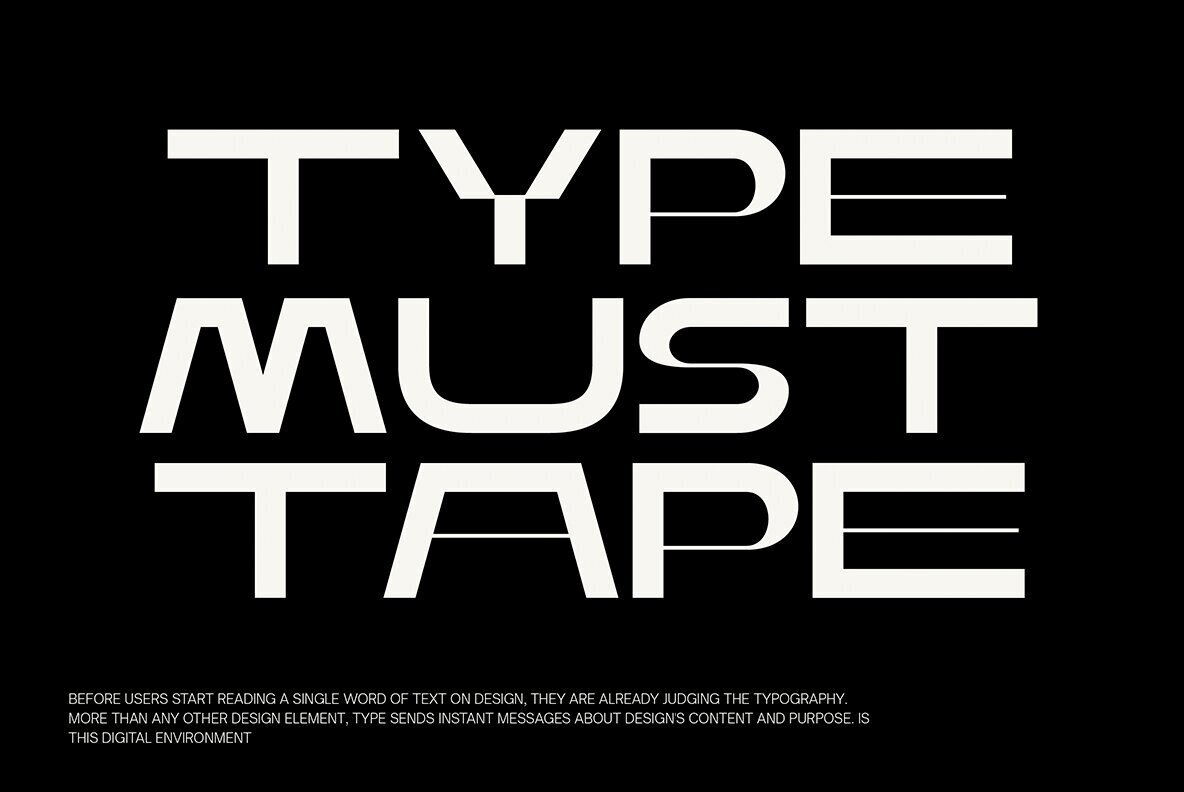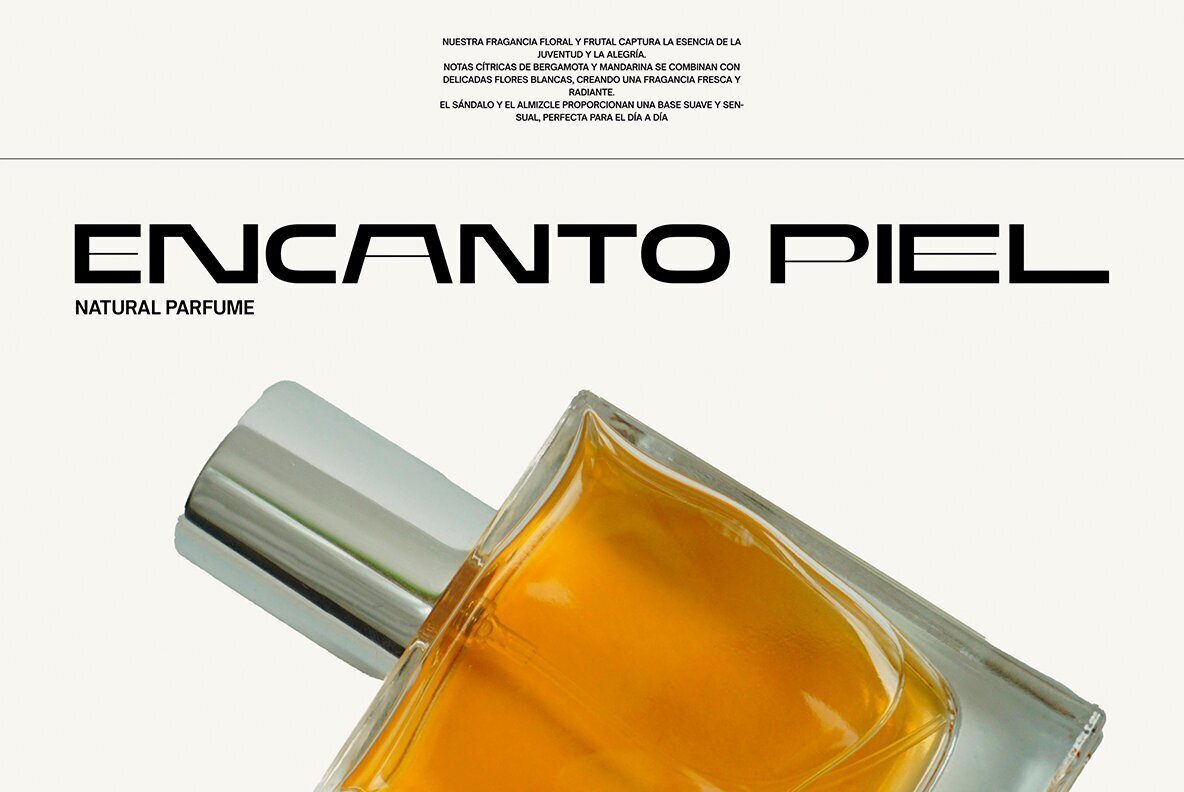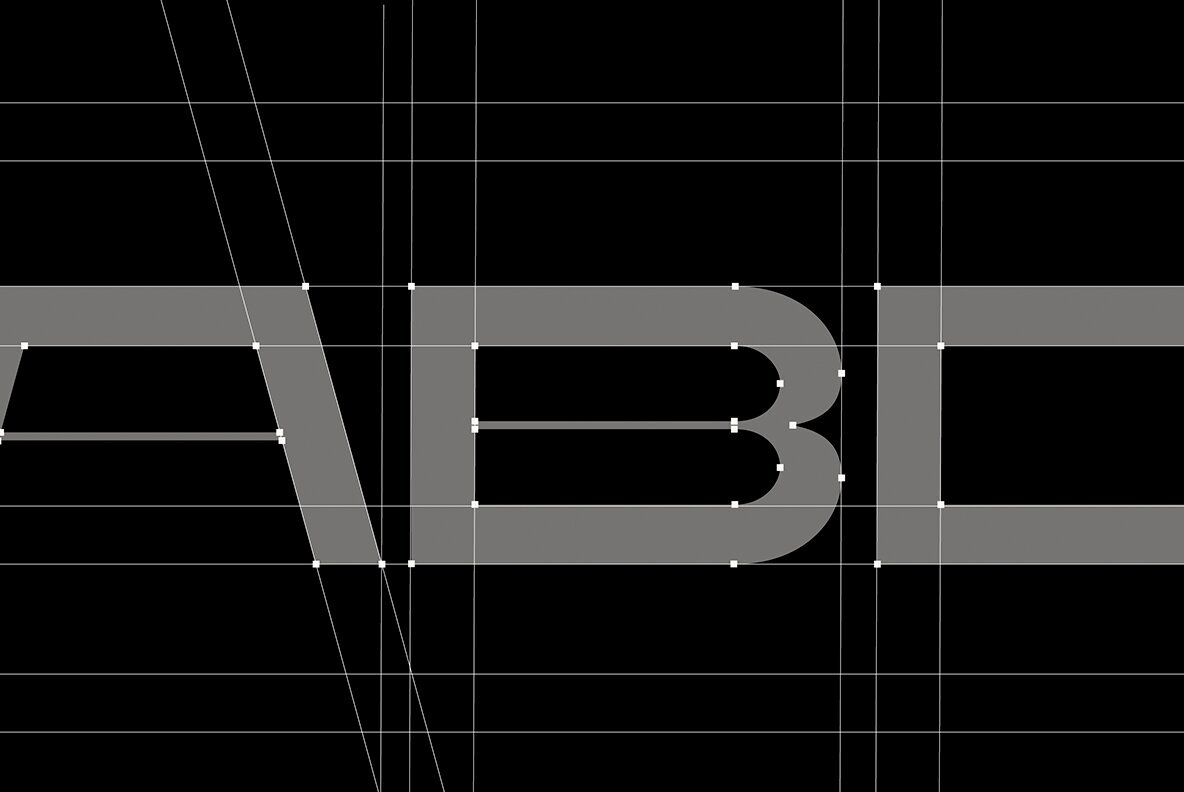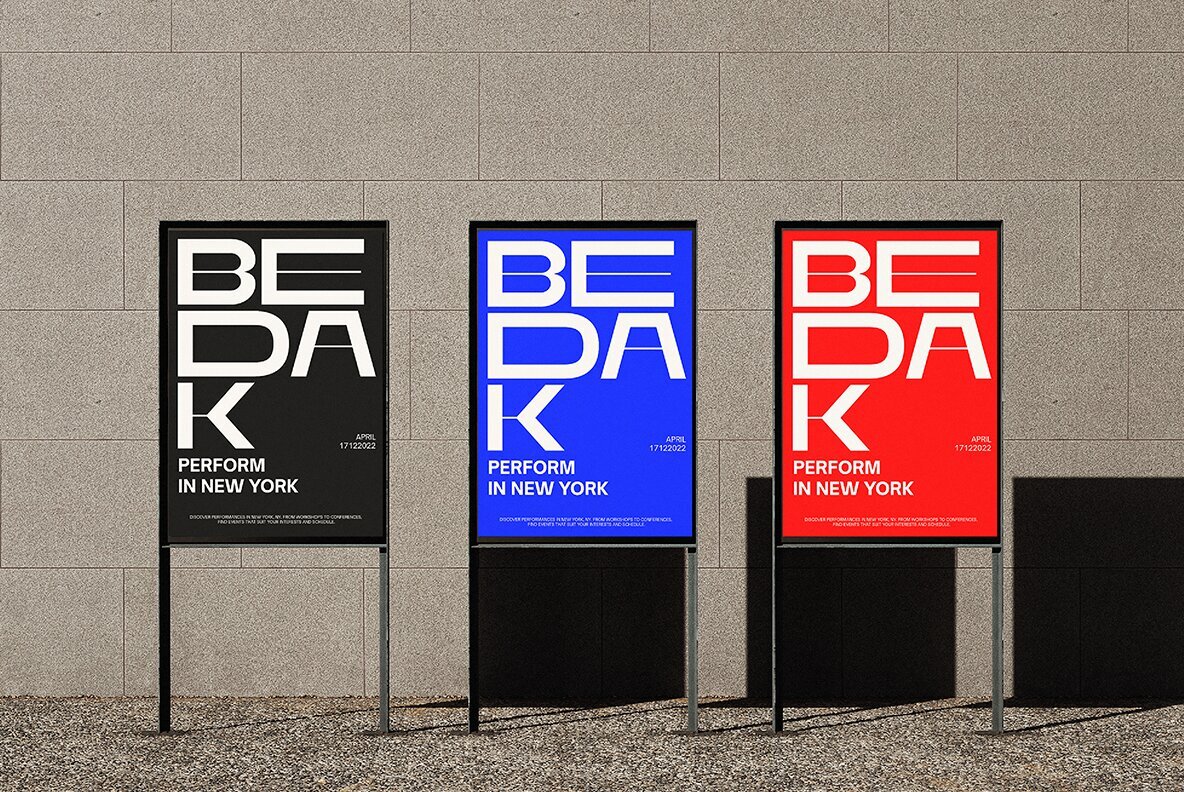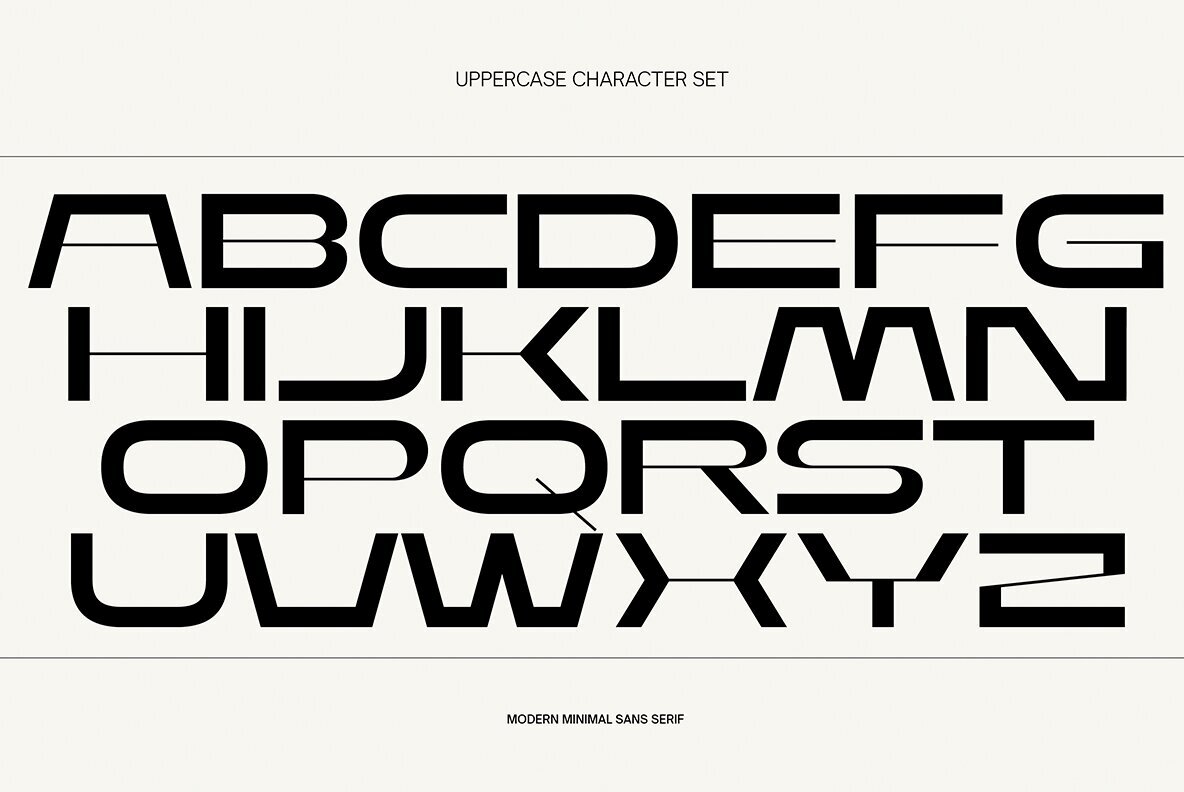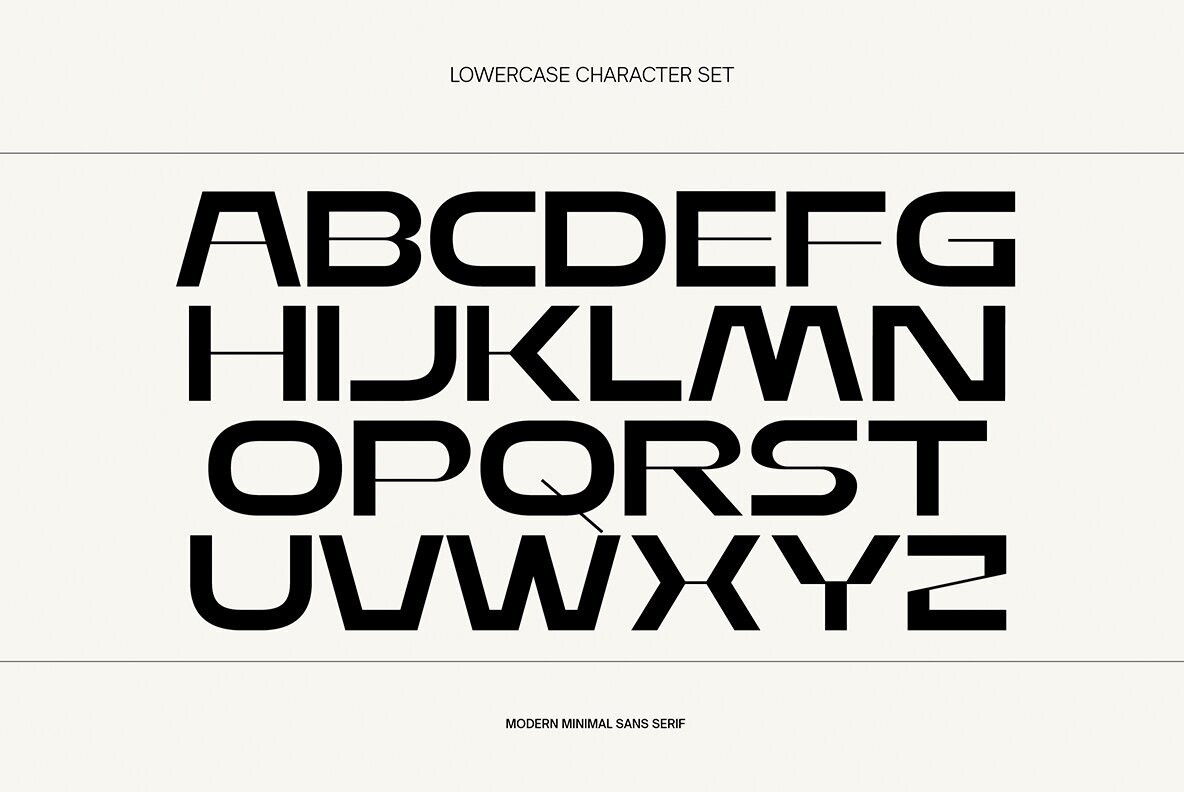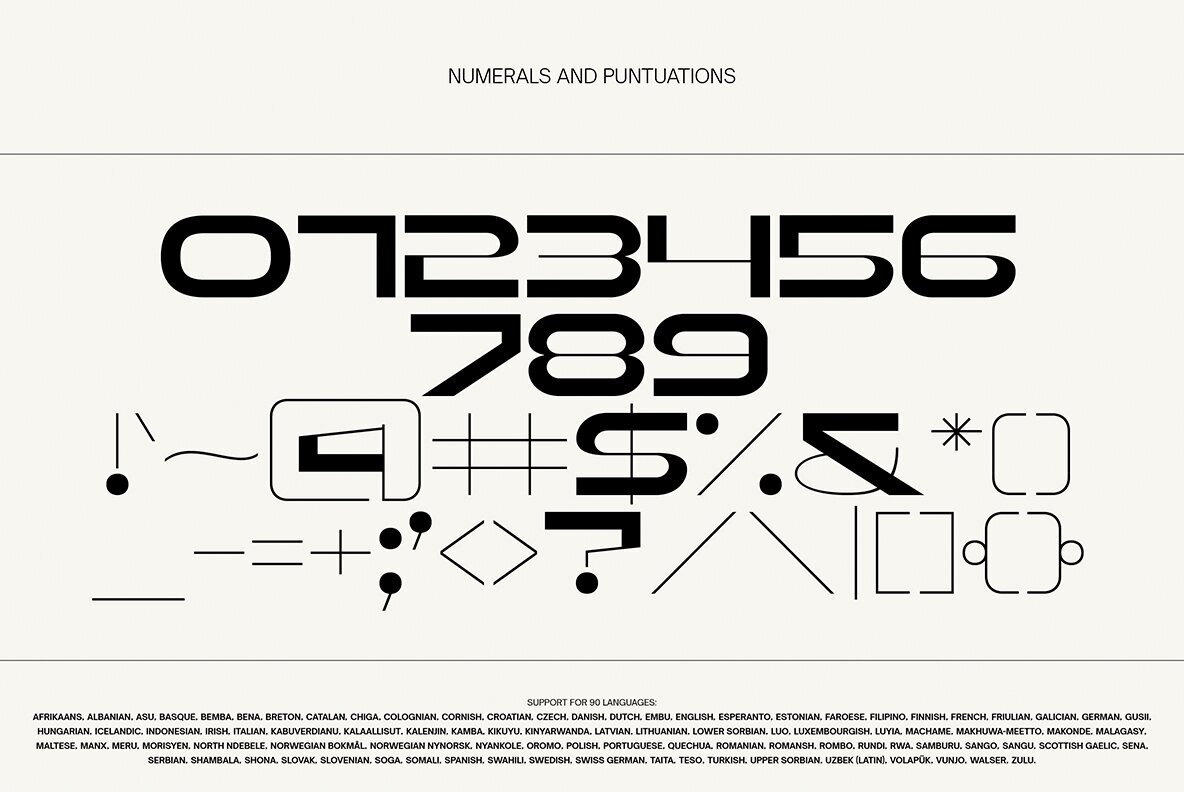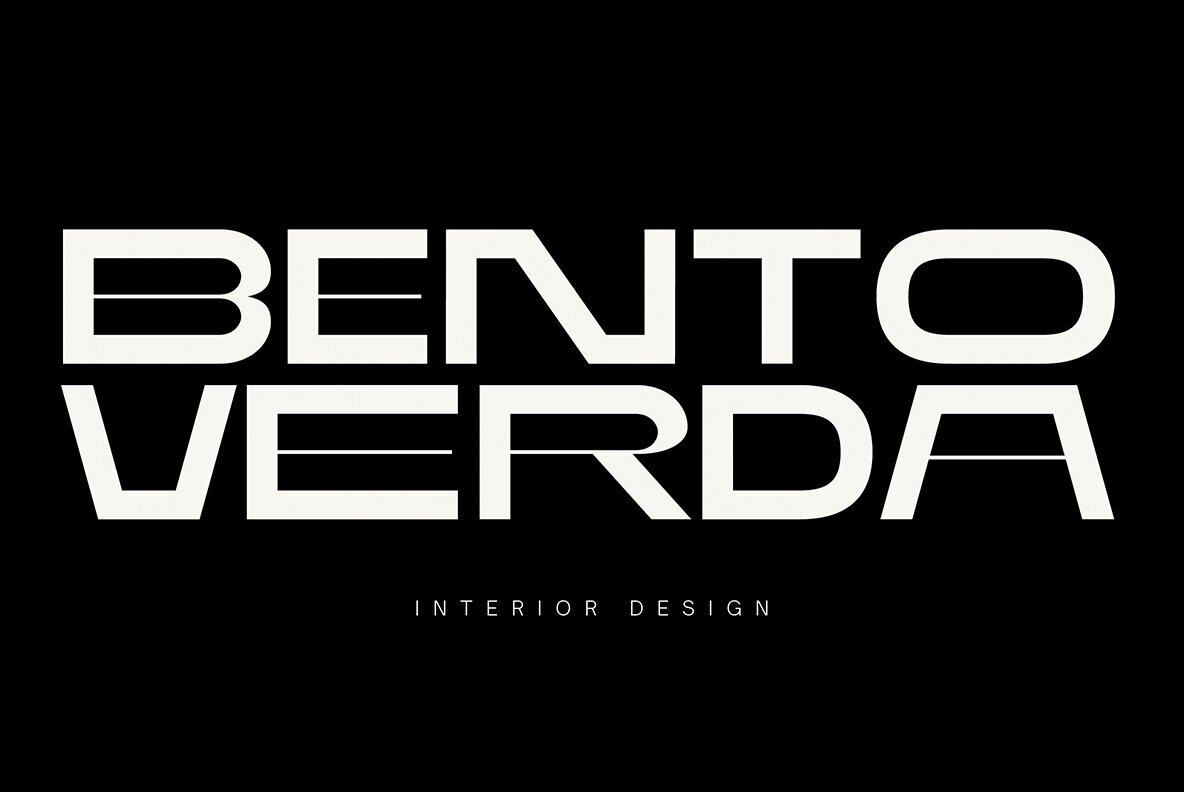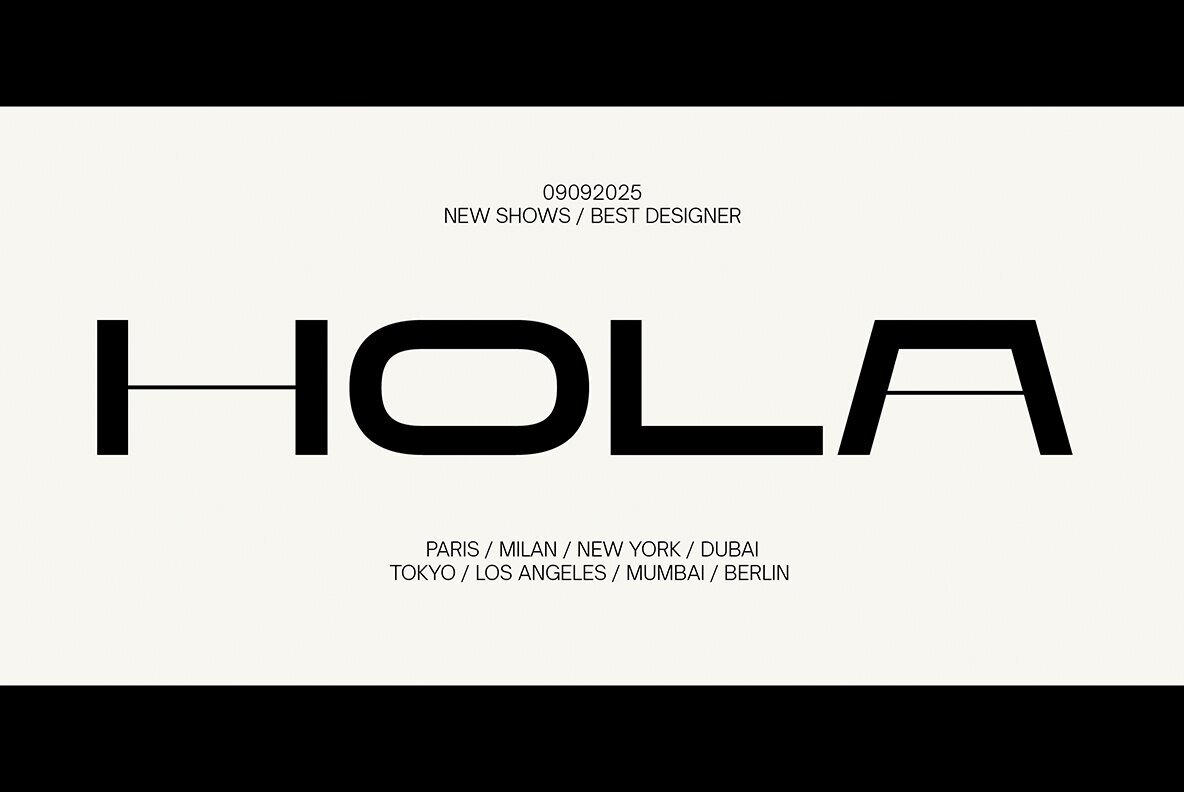
Dawbe Font
Dawbe Regular
Dawbe is a modern sans-serif font offering a bold yet sleek design, perfect for a range of creative applications. Its minimalist style and clean lines make it ideal for logos, presentations, and business portfolios. This font blends simplicity with sophistication, offering a versatile option for your branding and design needs.
With its geometric precision, Dawbe presents a contemporary and professional aesthetic. Its design ensures that each project maintains a polished and cohesive look, making it a valuable addition to any designer's toolkit. Whether you're crafting a brand logo or curating a corporate presentation, Dawbe delivers a striking visual impact with understated elegance.